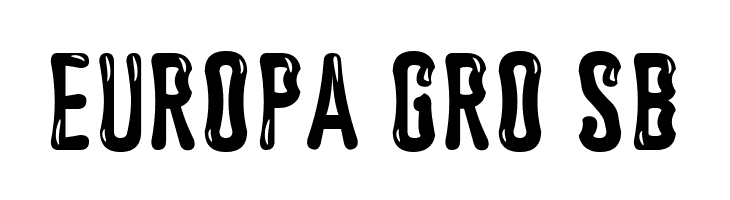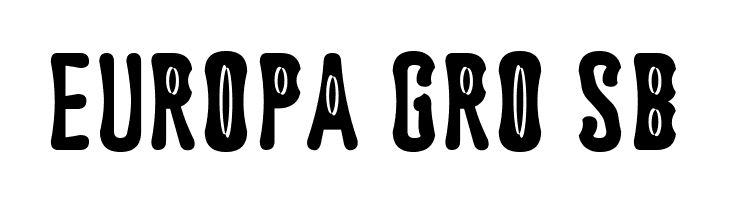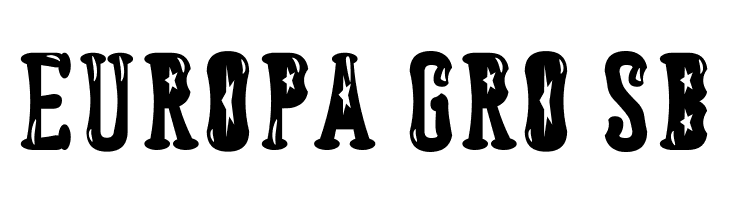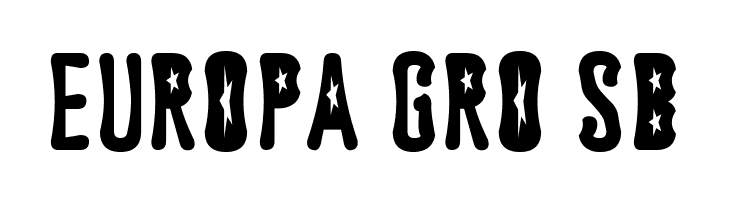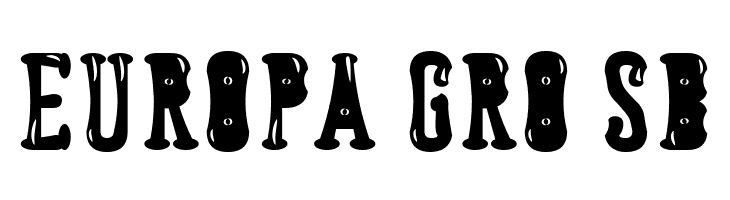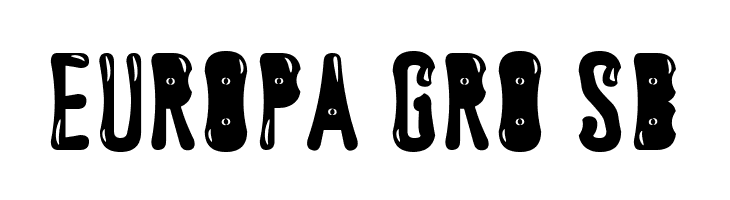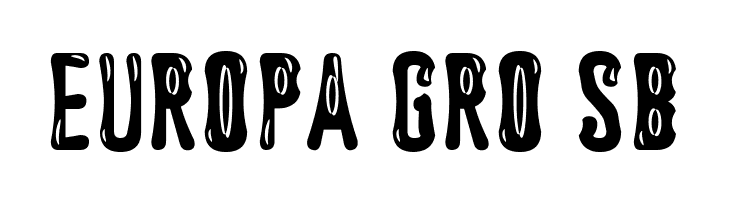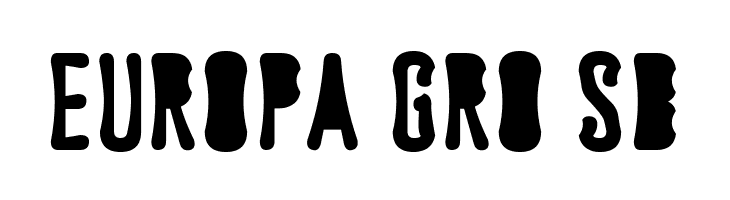
• Astakhov Dished E-F-2
• Astakhov Dished F
A bold, playful font with irregular, whimsical shapes and a decorative style.
• Astakhov Dished FS
A bold, playful font with star-like cutouts and dynamic shapes.
• Astakhov Dished Gl FS Serif
A bold, decorative serif font with star-like cutouts for a playful touch.
• Astakhov Dished Glamour
A bold, wavy font with a liquid-like texture, perfect for dynamic designs.
• Astakhov Dished Glamour E
A bold, decorative font with fluid, wavy lines and high contrast strokes.
• Astakhov Dished Glamour E-F
A bold, playful font with a liquid-like, dynamic appearance.
• Astakhov Dished Glamour E-F-2
A bold, wavy font with high contrast and a playful, dynamic style.
• Astakhov Dished Glamour E-F-2 S
A bold, decorative font with playful, whimsical characters.
• Astakhov Dished Glamour E-F-2 S
A bold, decorative font with playful serifs and whimsical curves.